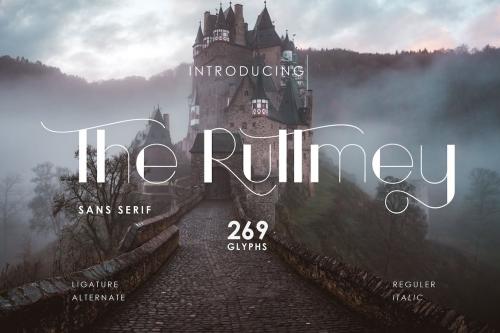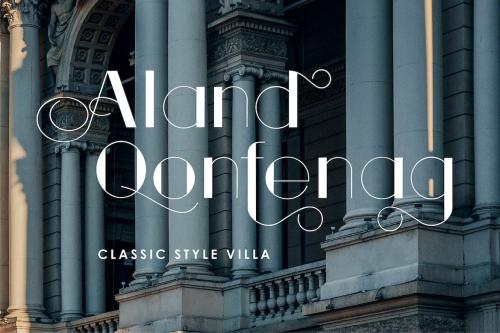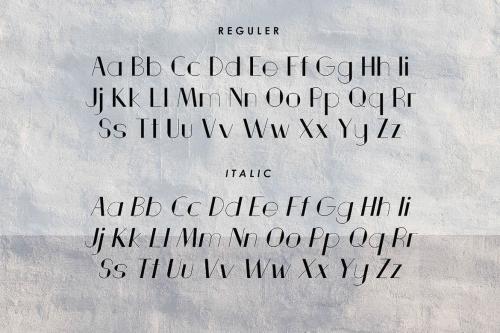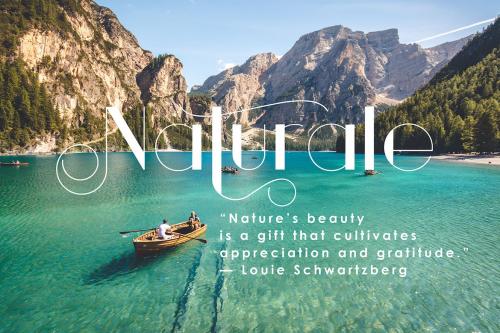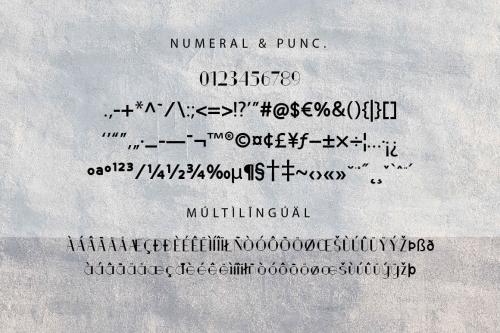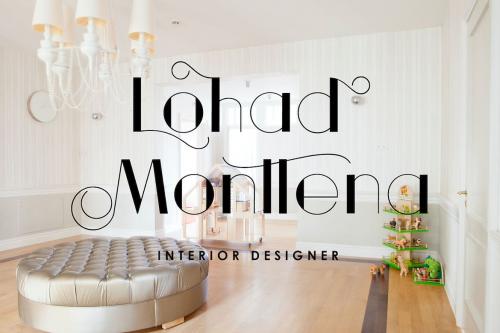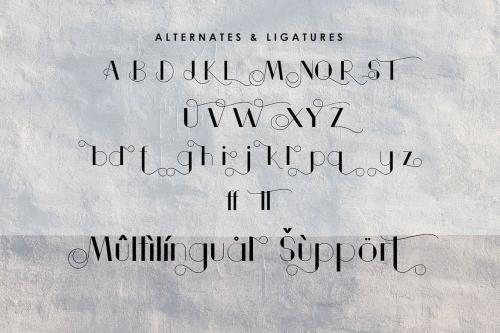
鲁特迈字体
The Ruttmey Font
**The Ruttmey** is an elegant and unique sans serif font. With its neat and beautiful arrangement of letters, this typeface will look outstanding in both formal and non-formal designs.
*Uppercase & Lowercase
*Numbers & Punctuation
*Ligatures & Alternates
*Multilingual Support
*Regular & Italic